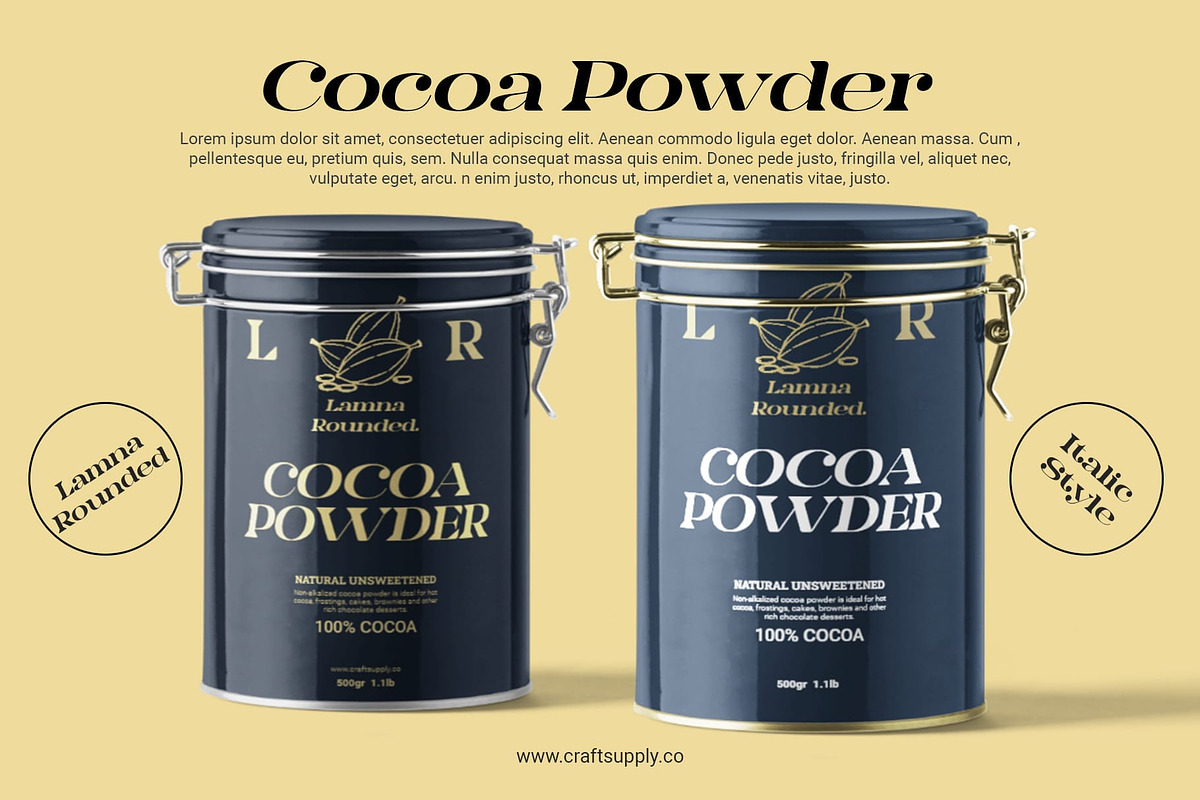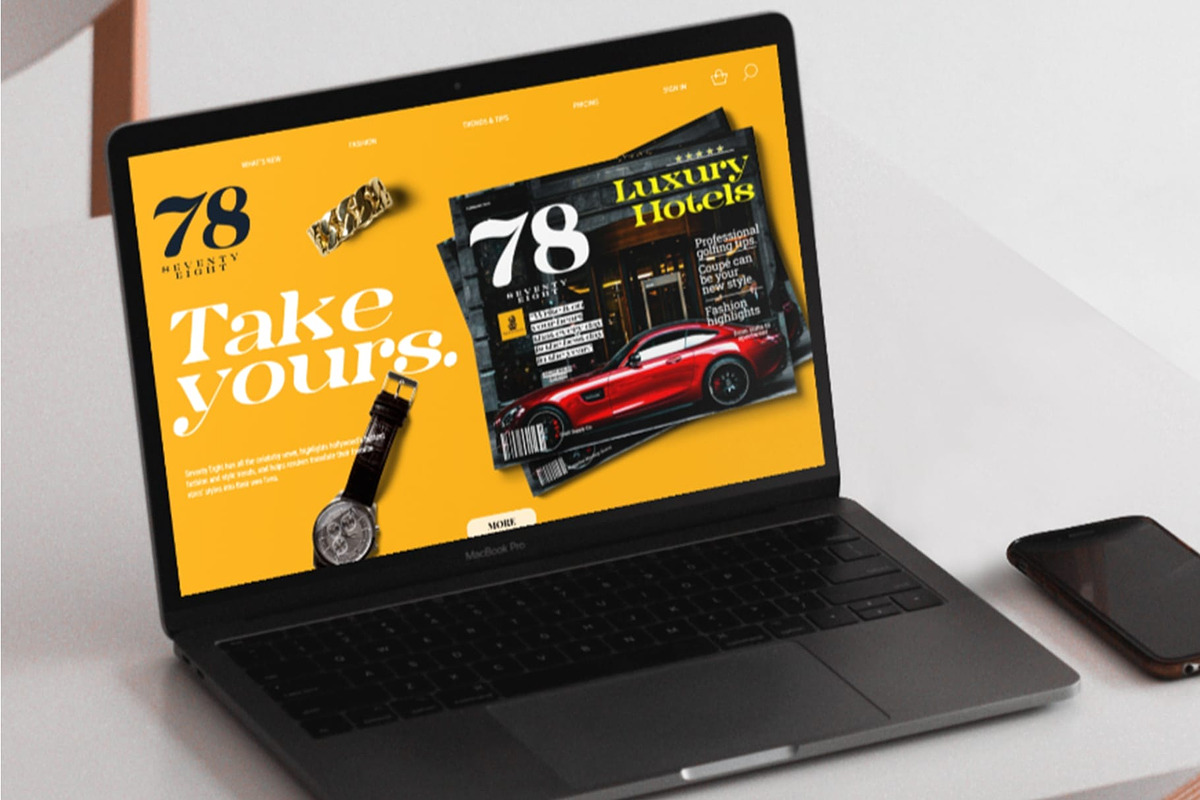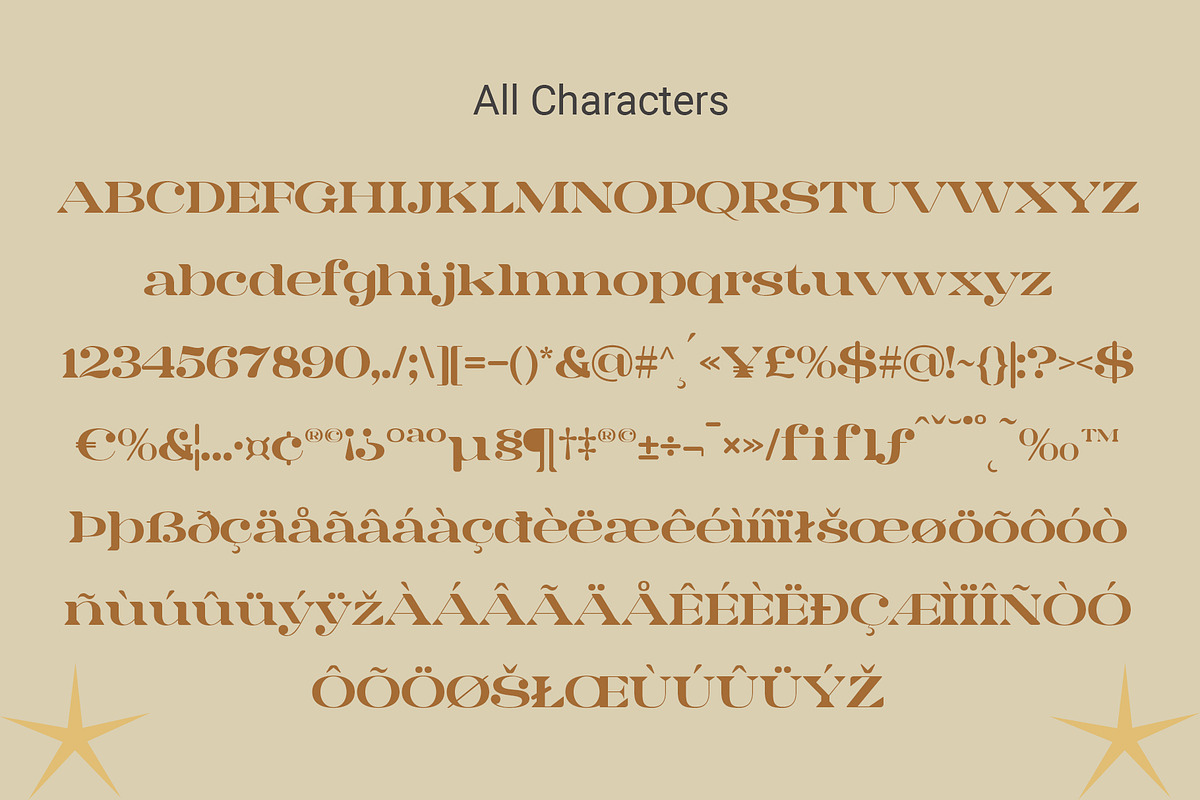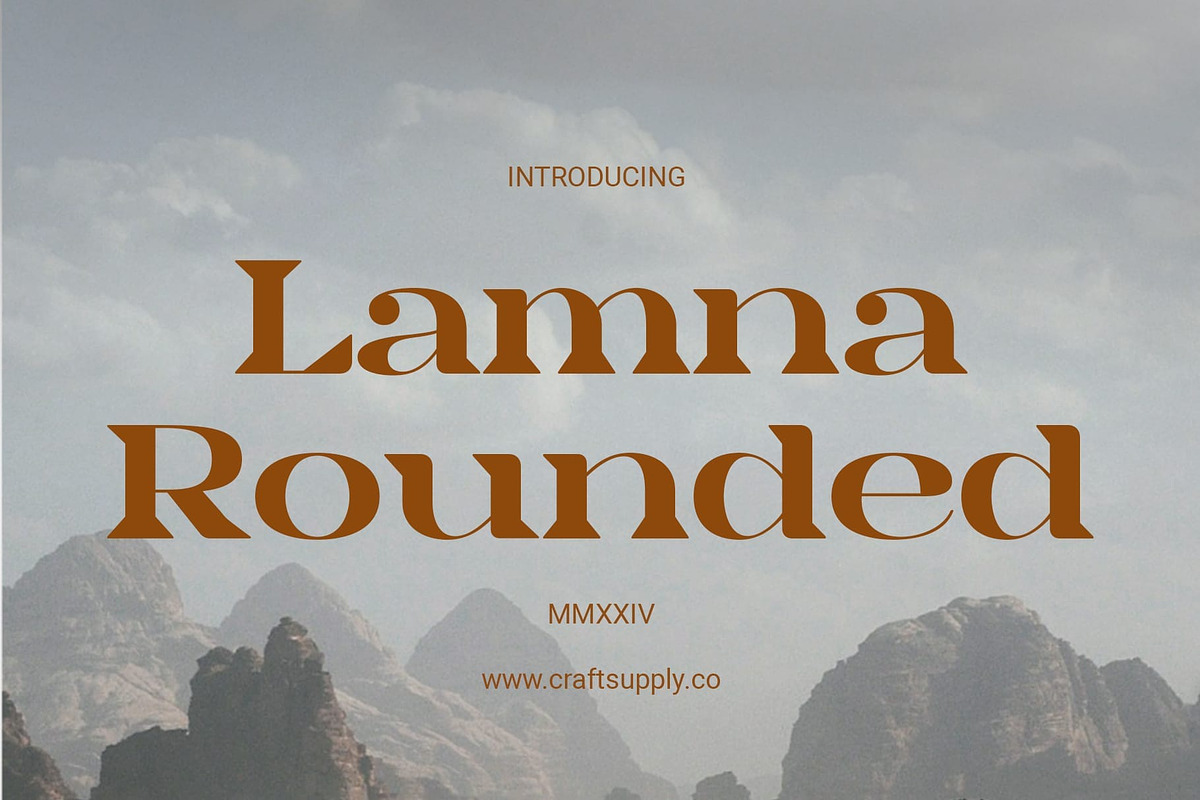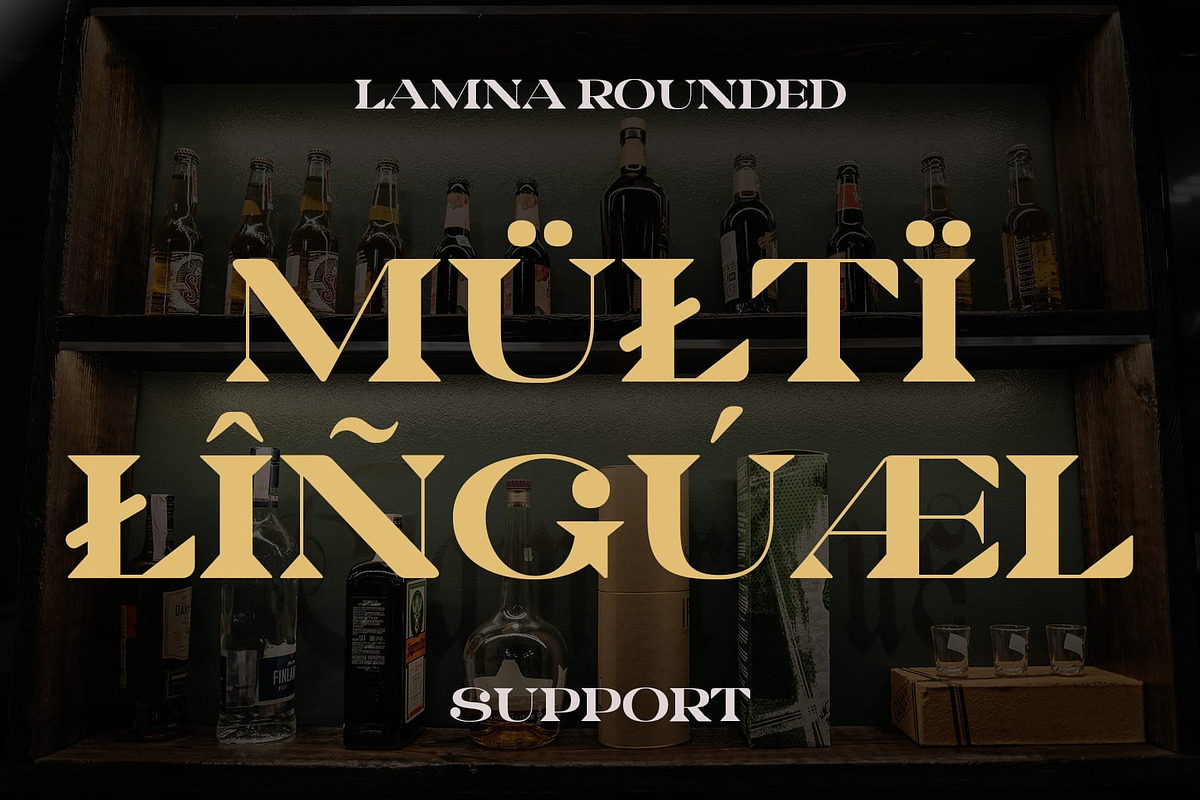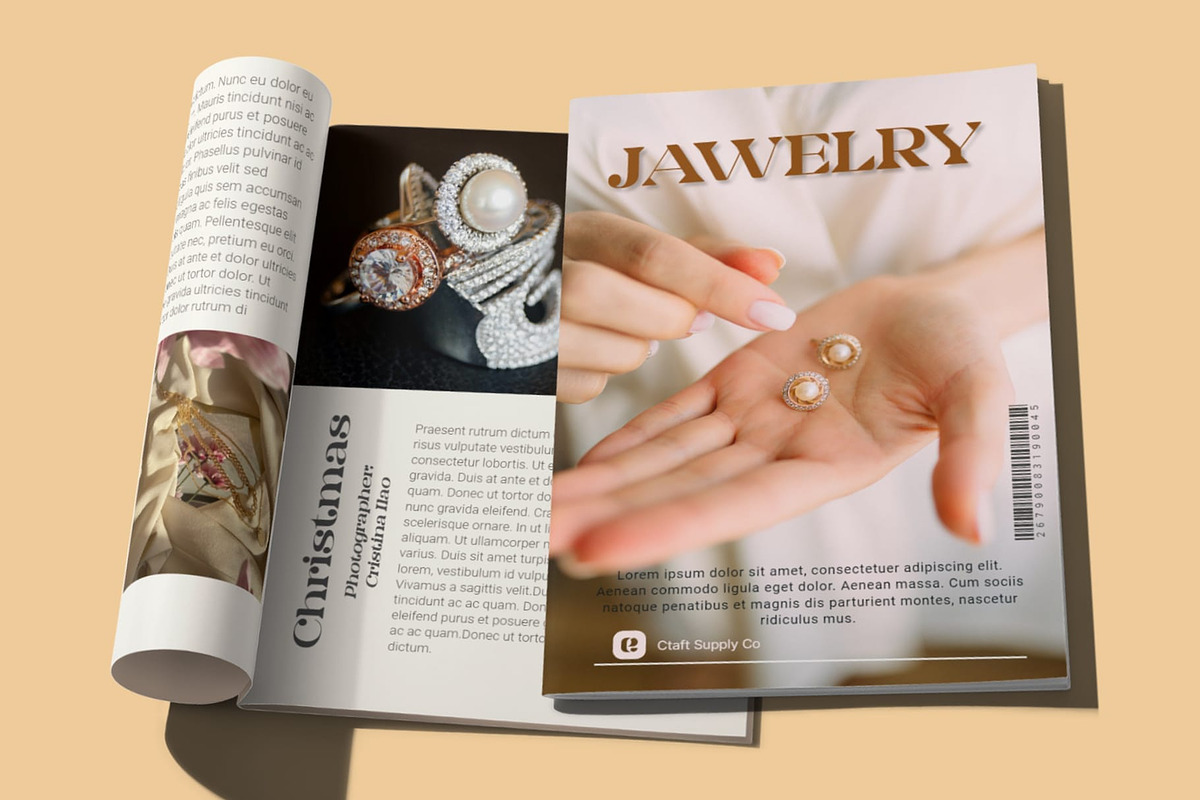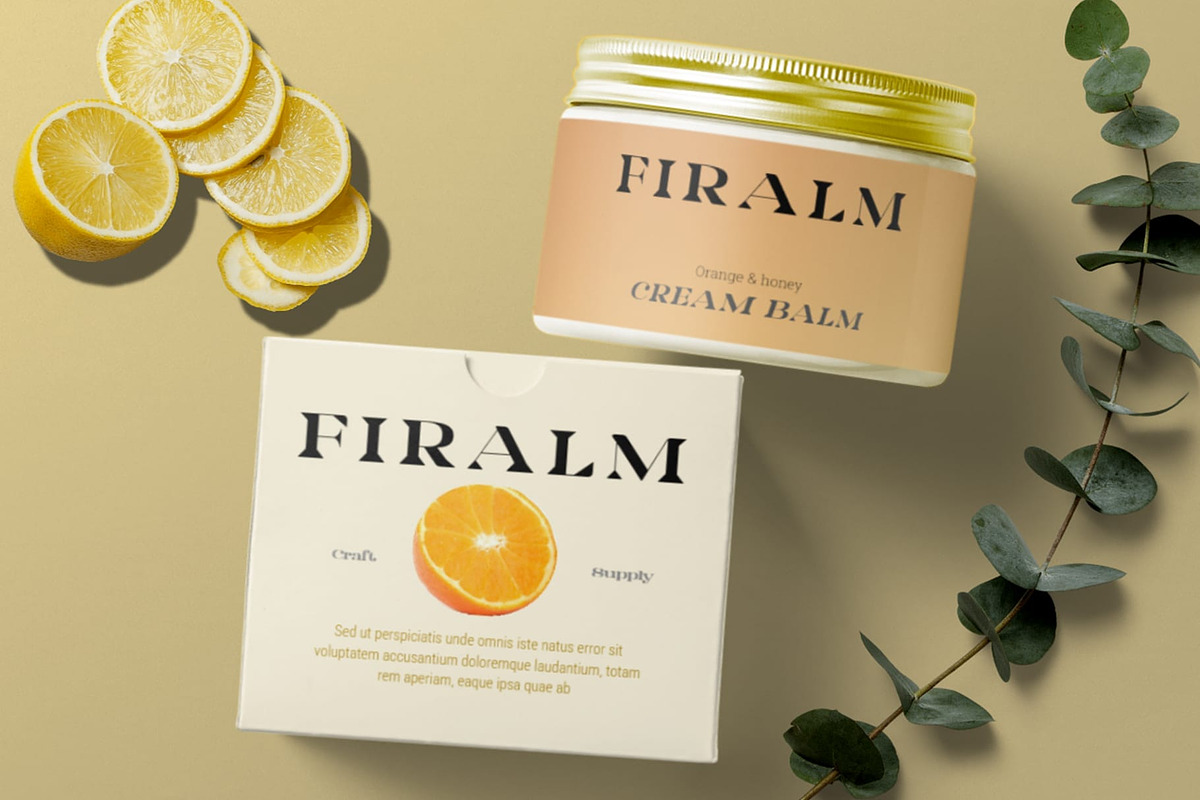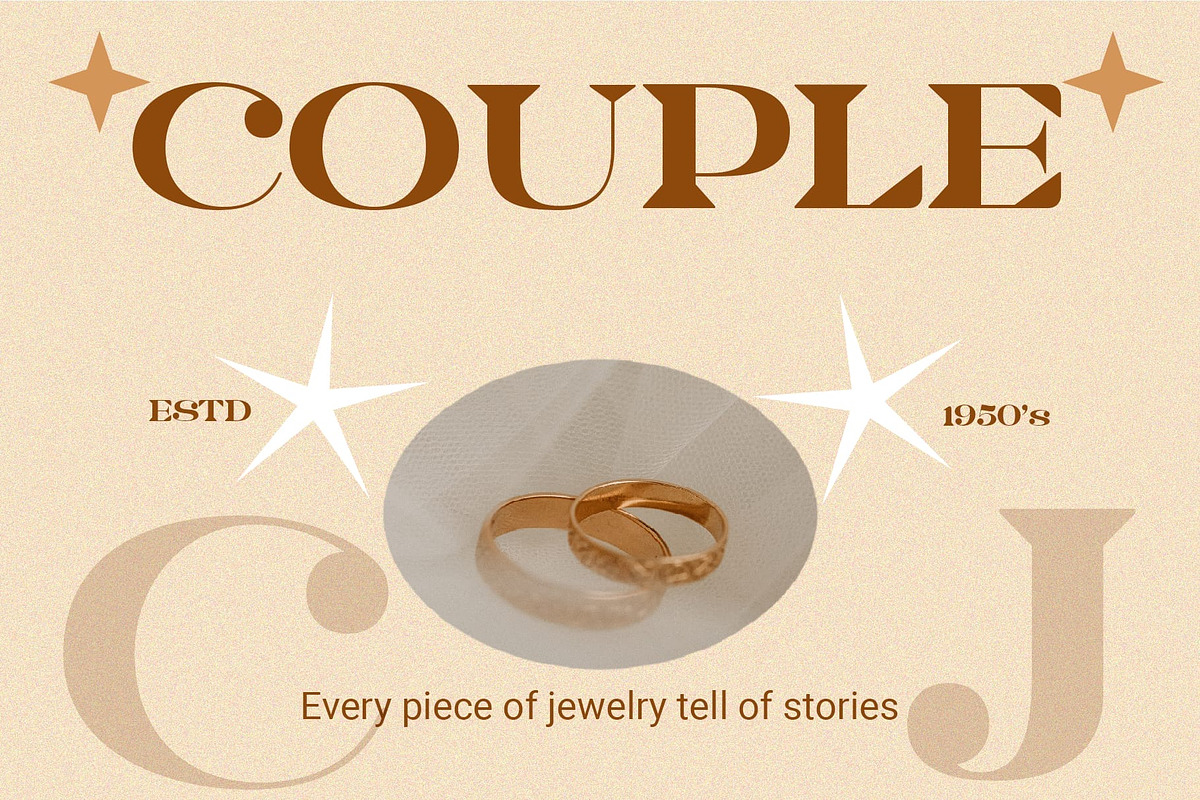
Lamna Rounded
Lamna Rounded: The Elegance of High-Contrast Serif
Distinctive High-Contrast Design Lamna Rounded presents a high-contrast serif font with a unique touch of elegance. Its bold strokes and delicate serifs create a captivating visual impact.
Friendly Vibes with Rounded Serifs The rounded serifs of This font infuse a sense of friendliness into its elegant design. This combination of sophistication and approachability makes it versatile for various design projects.
Versatile Elegance for Every Project With its high contrast and rounded serifs, This font adapts seamlessly to diverse design needs. Whether it’s for branding, editorial layouts, or web design, this font exudes timeless elegance.
Elevate Your Designs Step into the world of refined typography with This elegant yet friendly font. Its elegant high-contrast design and friendly vibes make it a perfect choice for those seeking sophistication with a touch of warmth.